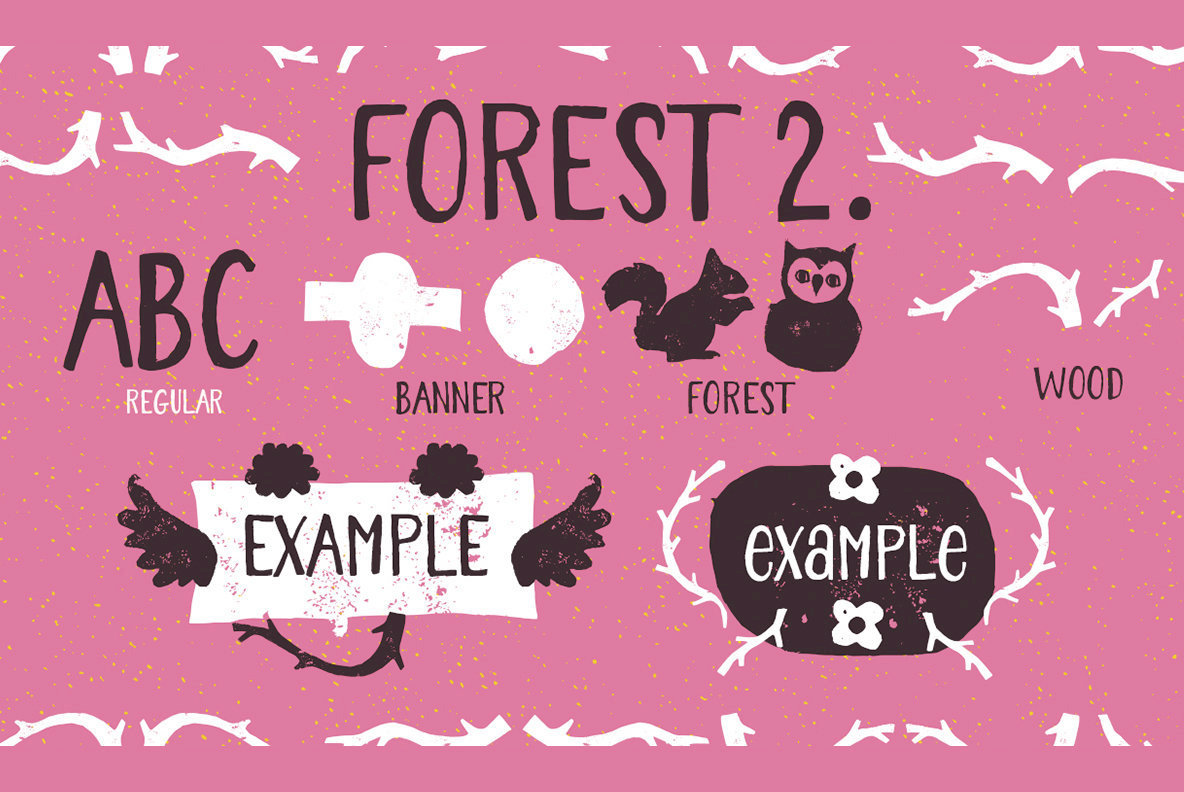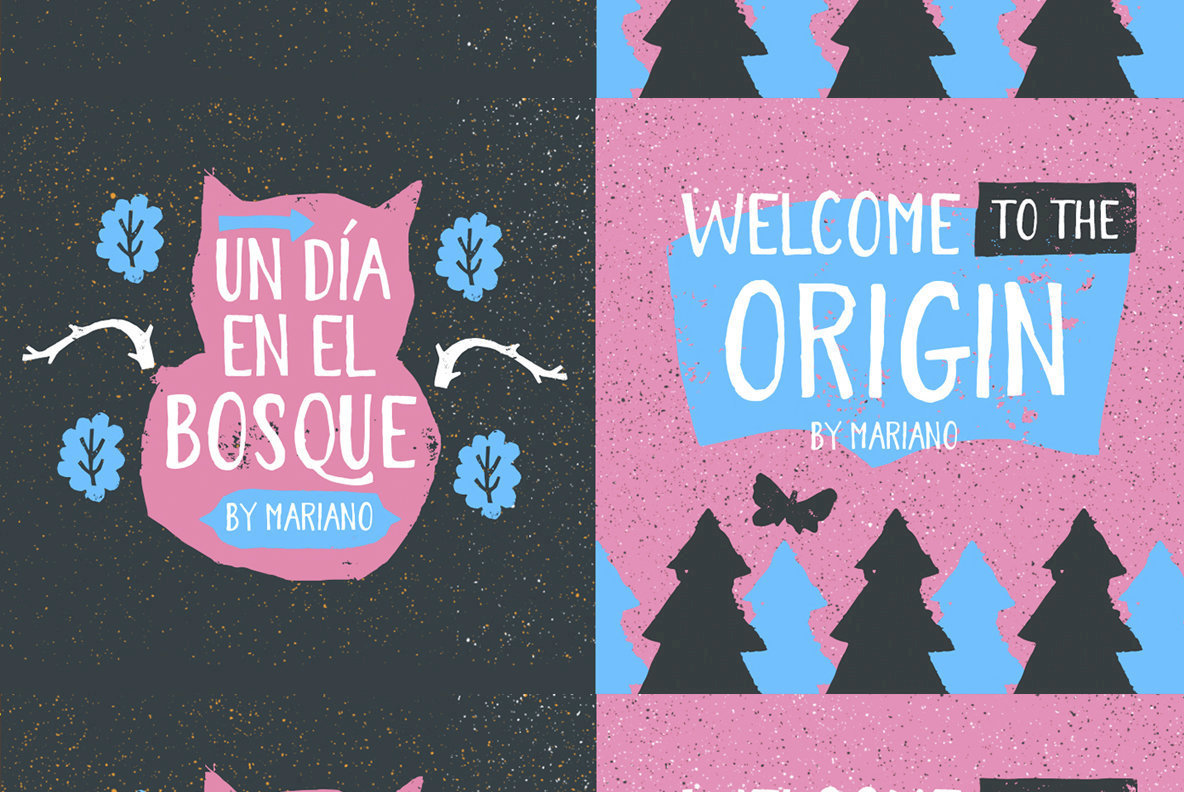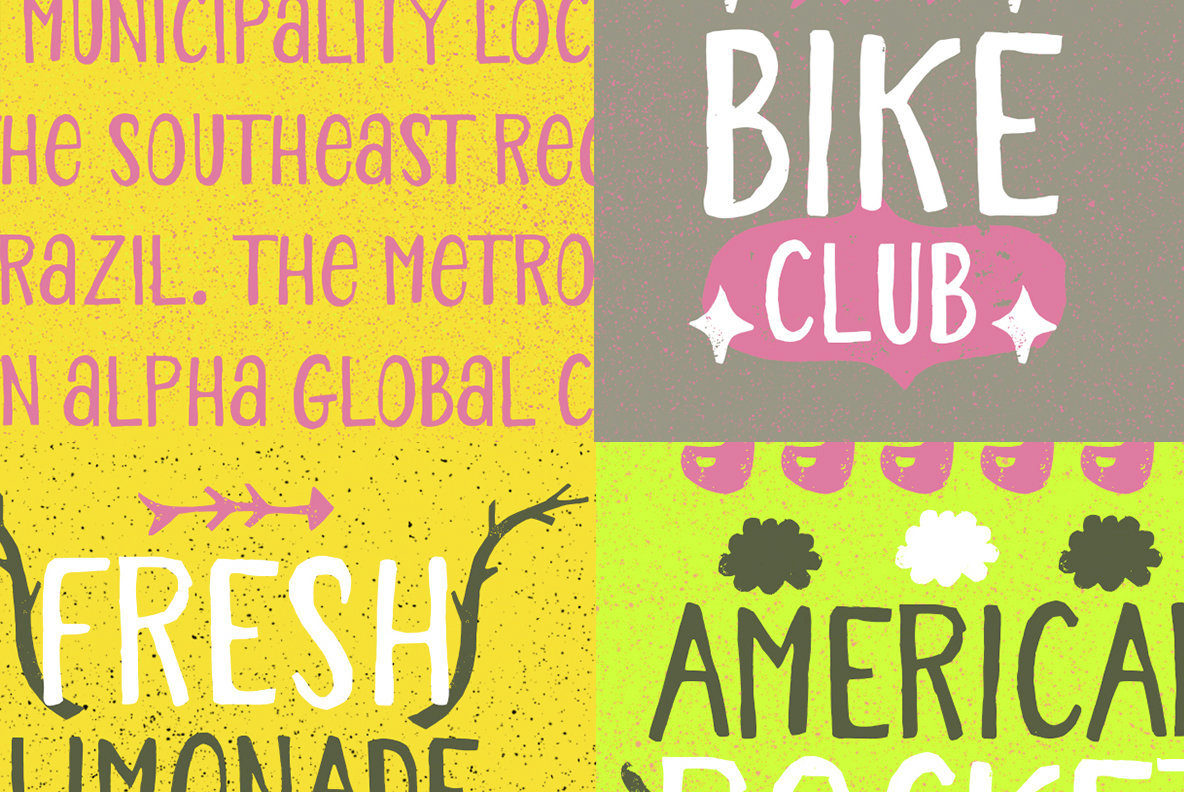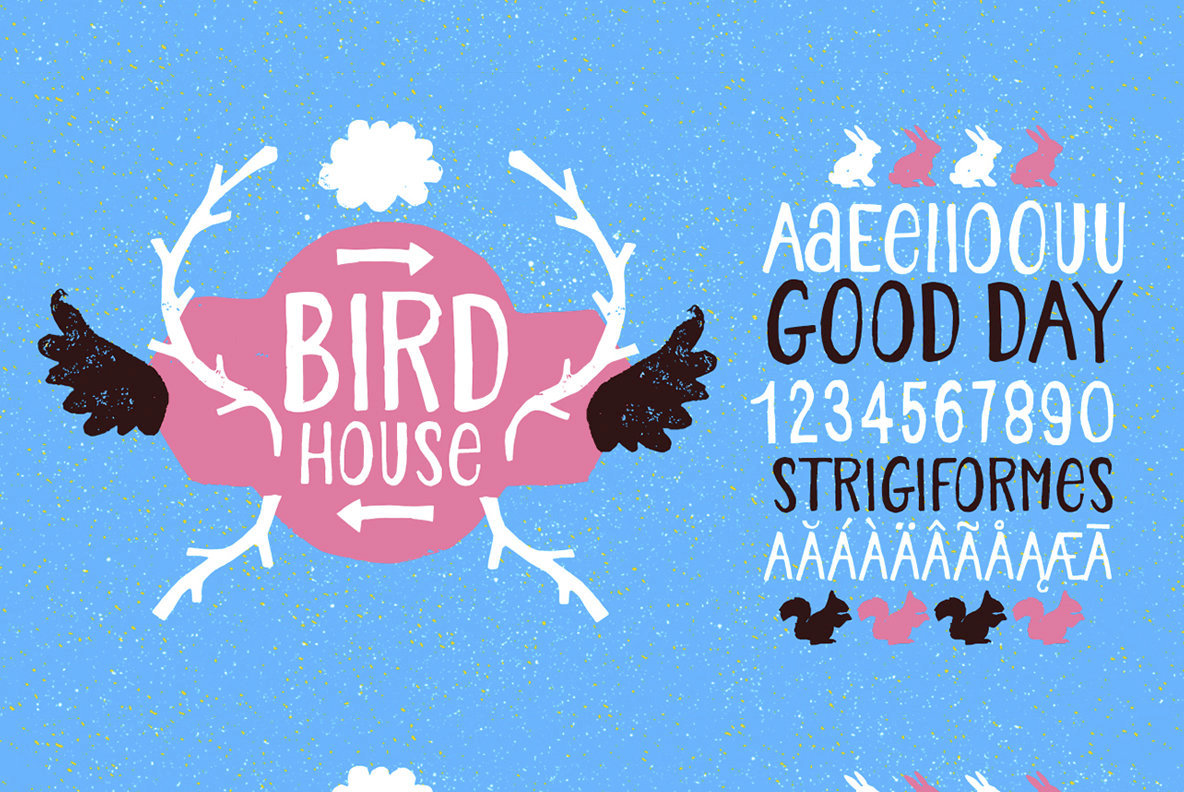
Forest Two Font
Forest Two
Forest Two Extra
Forest Two Banner One
Forest Two Dingbat Forest One
Forest Two Dingbats Wood One
Forest Two is an organic, distressed and display style font design.